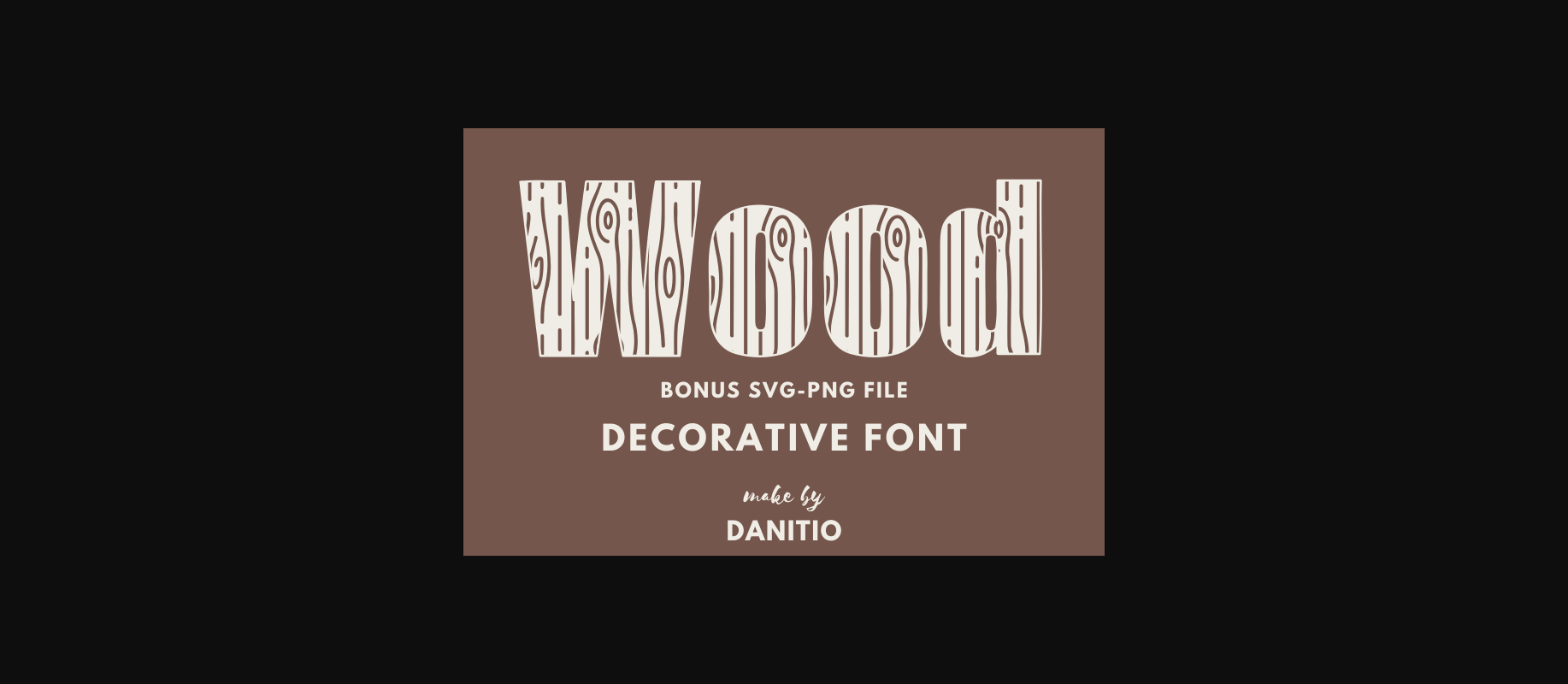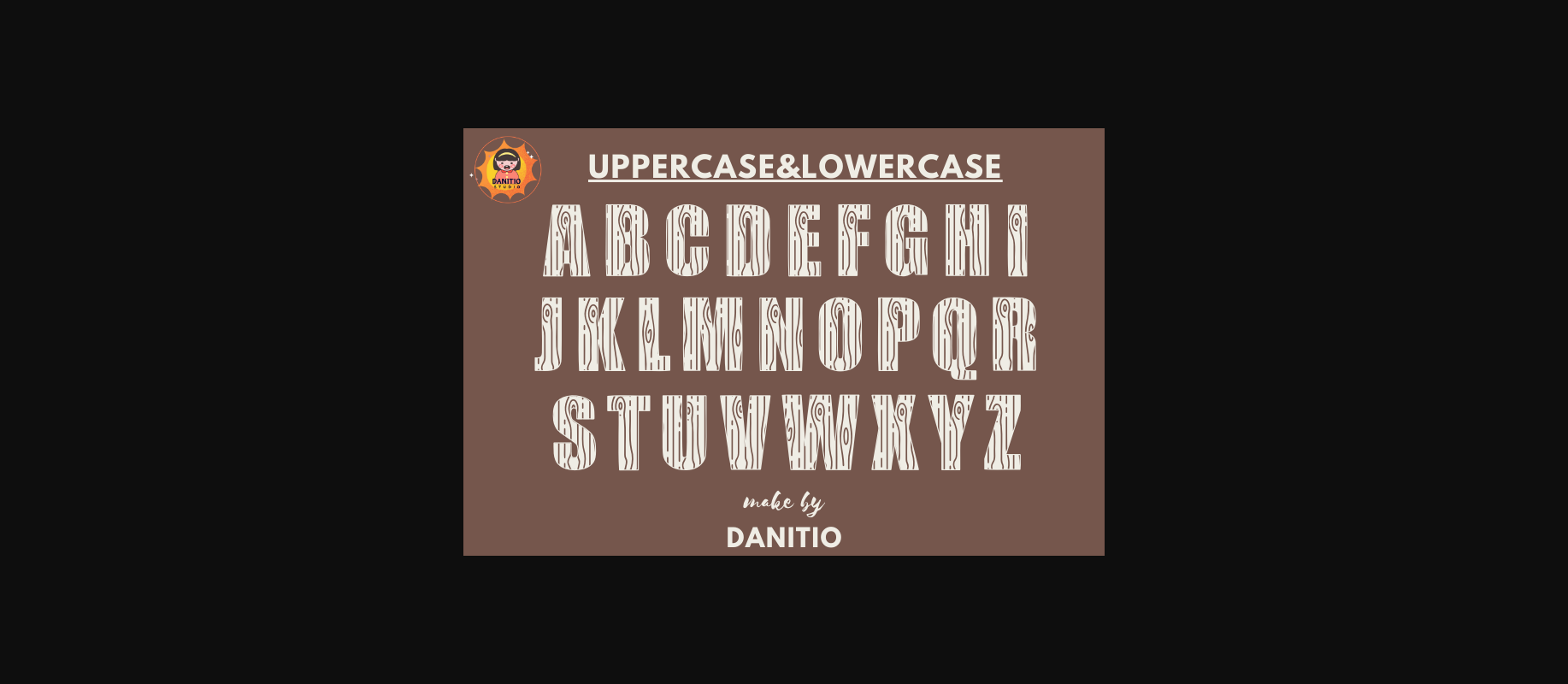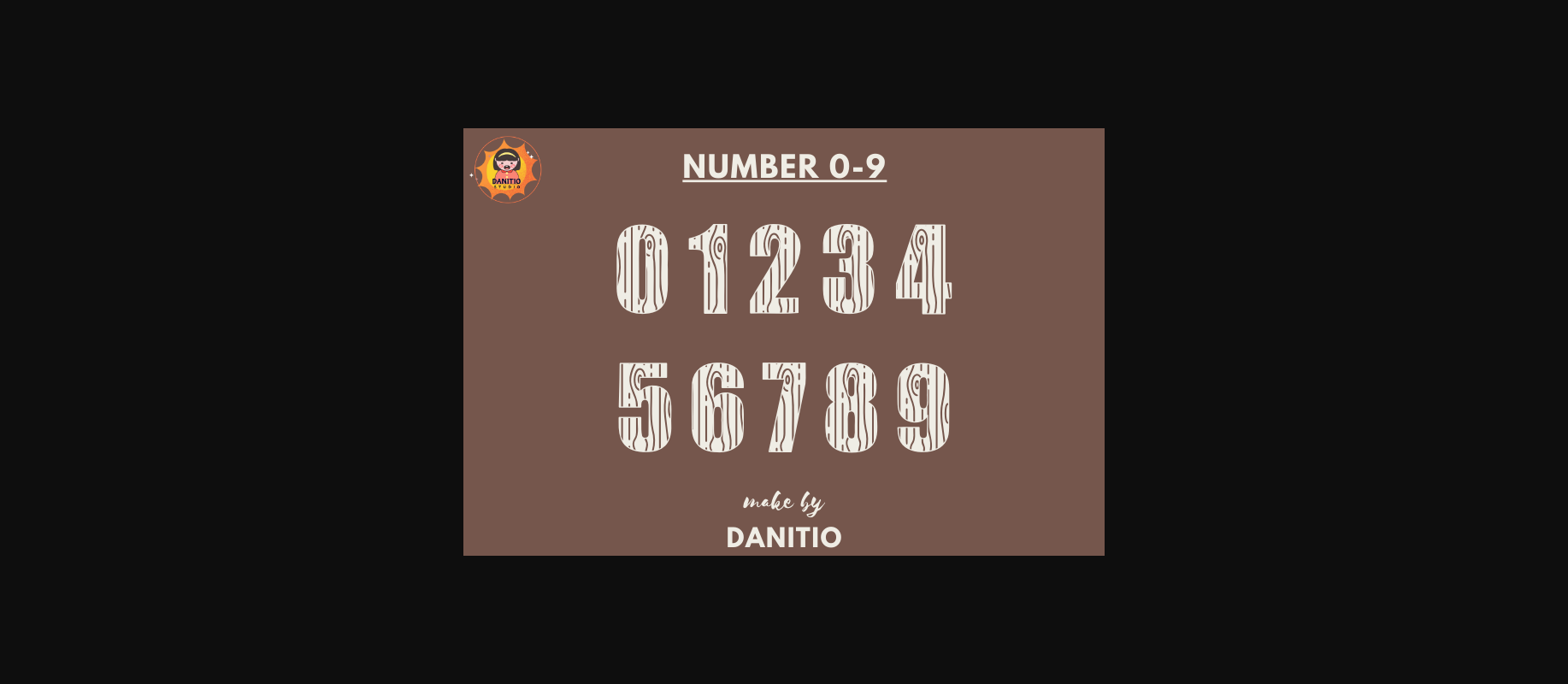
About Wood Font
Wood is a fun decorative font. It is a perfect combination of letters and wood grain. Beautiful and intricate patterns blend to enhance the look of your products with every design. Perfect for wedding invitation cards, stationery, mugs, shirts, bags, phone cases or decorations.